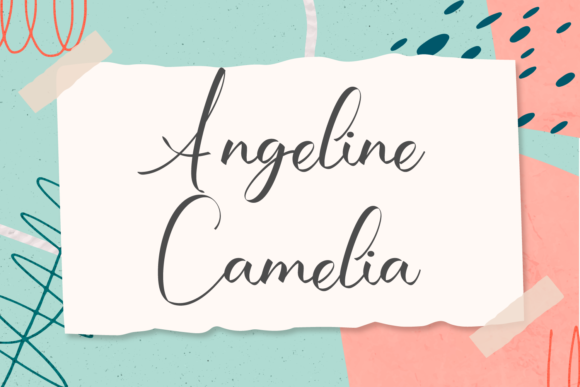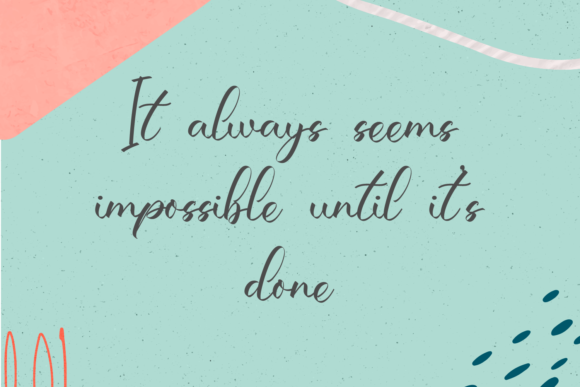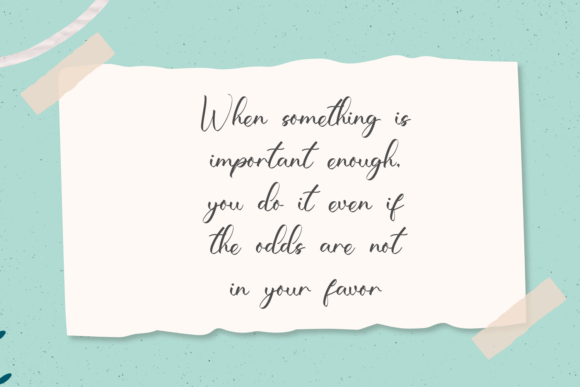
Angeline Camelia Font
About Angeline Camelia Font
Angeline Camelia is a flowing and delicate handwritten font that embodies charm and elegance in every character. Use it for projects that need lovely, romantic typography!